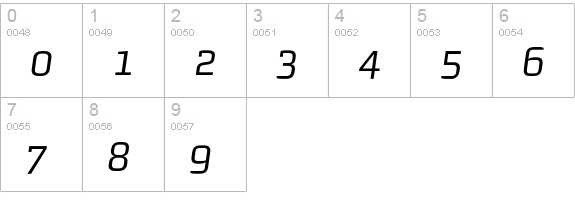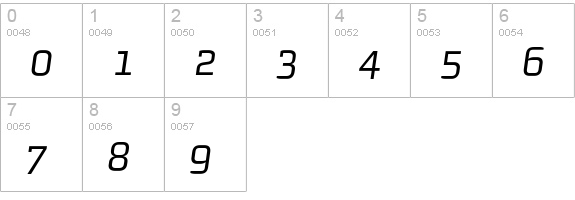
MorganAvec ItalicOffice Font Details
Introducing MorganAvec ItalicOffice font, a sleek and sophisticated typeface designed for professional and elegant projects. With its delicate lines and distinctive italic style, MorganAvec ItalicOffice exudes a sense of refinement and modernity that is perfect for creating a polished and upscale look. This font is not only visually appealing but also versatile, making it suitable for a wide range of design applications, from business cards and stationery to websites and social media graphics. Its timeless elegance and clean design make it a go-to choice for designers looking to add a touch of sophistication to their projects. Best of all, MorganAvec ItalicOffice font is completely free to download at FontsMarket.com. So whether you're a seasoned designer or just starting out, you can access this beautiful font at no cost and elevate your designs with its professional flair. Don't miss out on this opportunity to enhance your projects with the exquisite MorganAvec ItalicOffice font.